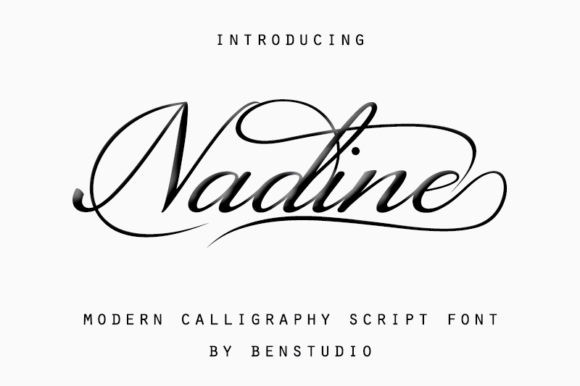
Nadine Font
Nadine Font is a modern and cursive handwritten font. Not too thin and not too thick, balanced and varied, this font was designed to enhance the beauty of your projects.